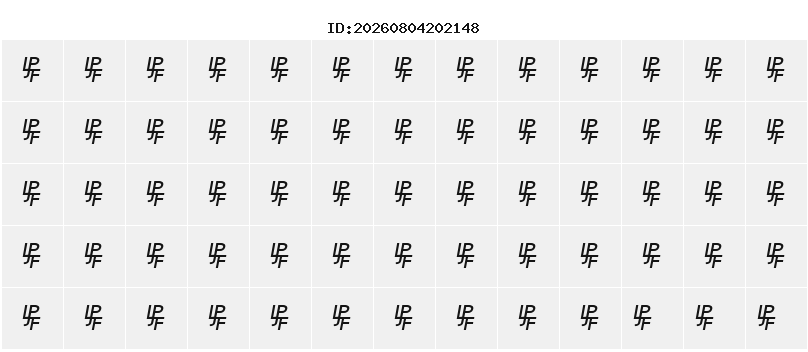
NewStyleTitling Embossed Preview
• Font Name: NewStyleTitling Embossed
• Full Font Name: NewStyleTitling Embossed
• Designer: PJL
About NewStyleTitling Embossed.ttf
NewStyleTitling Embossed.ttf is a modern, elegant sans-serif font designed for ultimate readability and visual harmony. Perfect for branding, headlines, web design, and print materials.